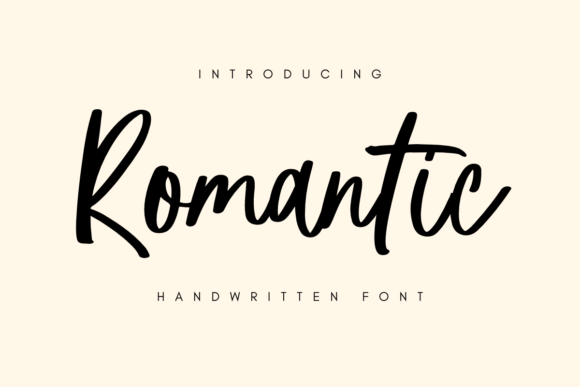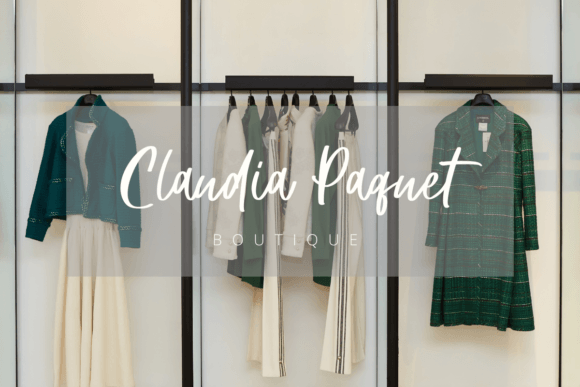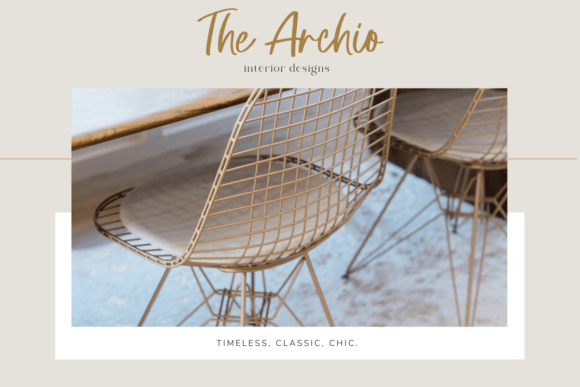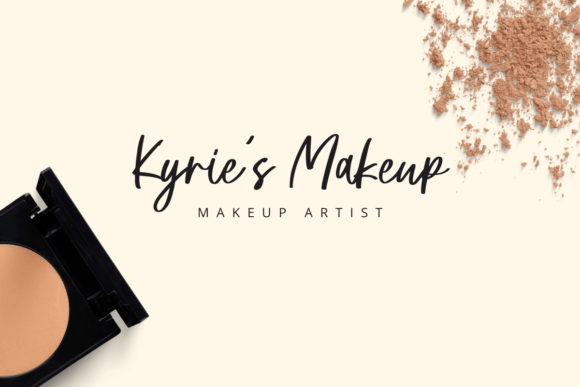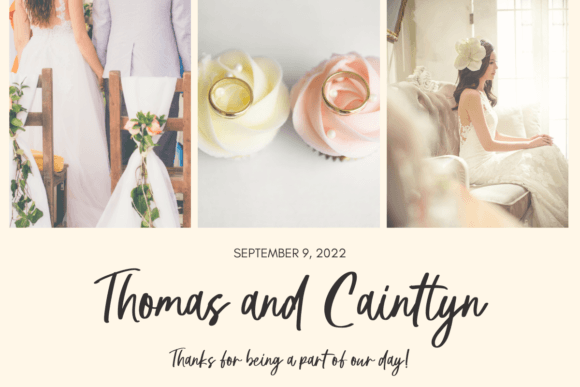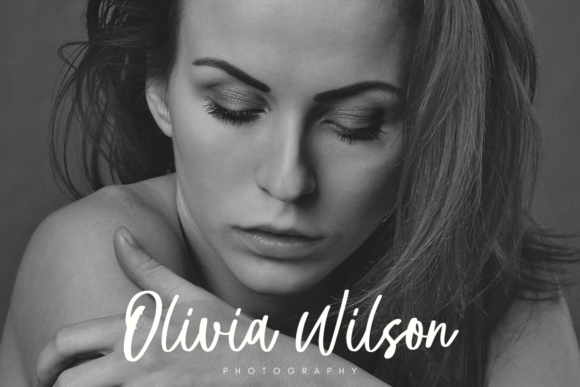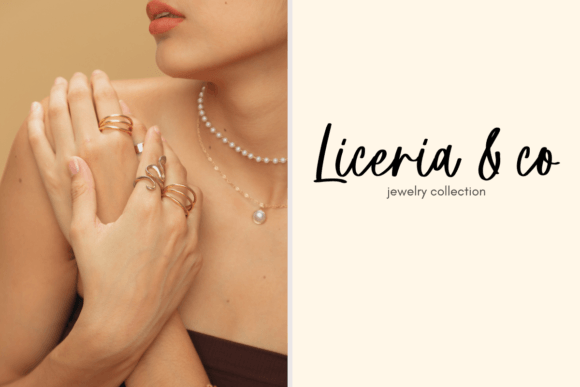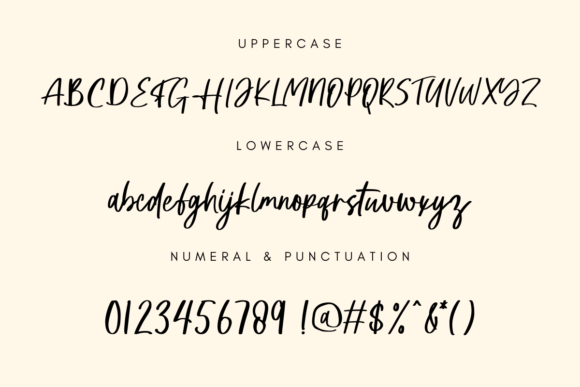
Romantic Font
About Romantic Font
Romantic, a charming handwritten font, is a versatile typeface perfectly suited for a myriad of design applications. Whether you’re working on a logo, branding, titles, social media posts, advertisements, product packaging, product designs, labels, photography, special events, web design, and more, Romantic adds a delightful touch to your creative projects.
The beauty of Romantic lies in its handwritten style, which brings a personal and authentic feel to your designs. The flowing characters exude a sense of warmth and intimacy, making it an excellent choice for projects that require a touch of romance and elegance.
Imagine Romantic gracing your logo, where its charming letters create a distinctive and memorable brand identity. For branding and product packaging, this font becomes a signature element that communicates style and uniqueness. Its adaptability shines through in social media posts, advertisements, and web design, where it adds a friendly and approachable vibe.
Romantic is not just a font; it’s a versatile tool that enhances the visual appeal of your creations. Its suitability for various design contexts makes it a valuable asset in your creative toolkit. The handwritten nature of the font adds character and personality, making it an ideal choice for projects that require a touch of individuality.
In conclusion, Romantic is more than just a typeface; it’s an expression of charm and elegance that elevates your designs across diverse applications. Let Romantic be the creative companion that infuses your projects with a delightful and romantic aura, leaving a lasting impression on your audience.